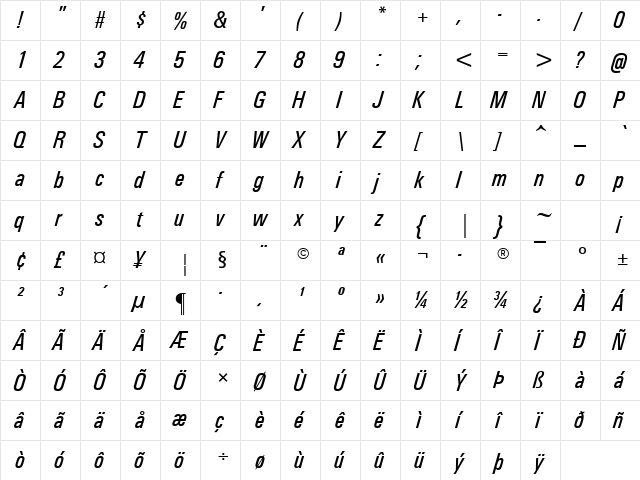
Univers Condensed Medium Italic Font Preview
Design Context for Univers Condensed Typeface
Univers Condensed is a composed and adaptable typeface that performs quietly and consistently across a wide range of design contexts. The slanted form adds forward momentum and visual energy. The condensed width makes it efficient for tight spaces without sacrificing legibility.
Pro Tip: Try Univers Condensed for annotation and caption copy alongside an upright companion — the contrast in angle creates a dynamic but ordered typographic system.